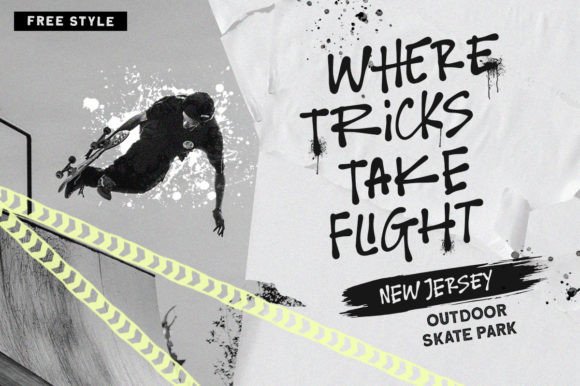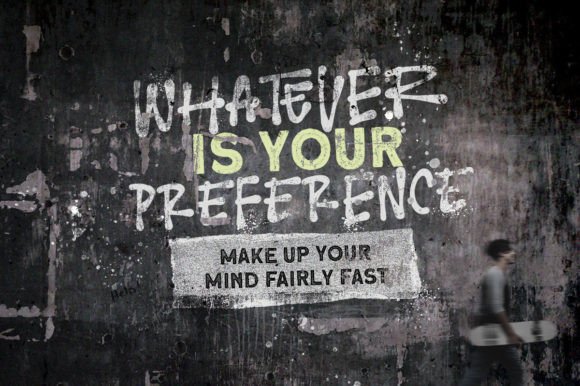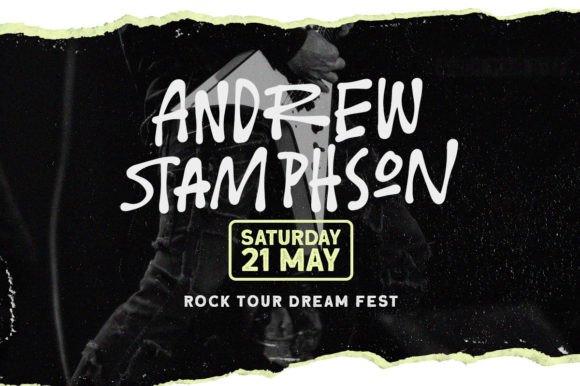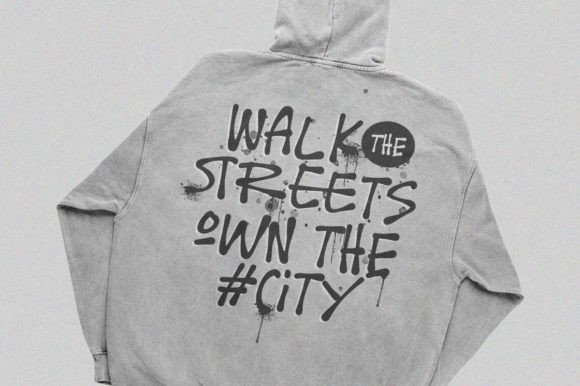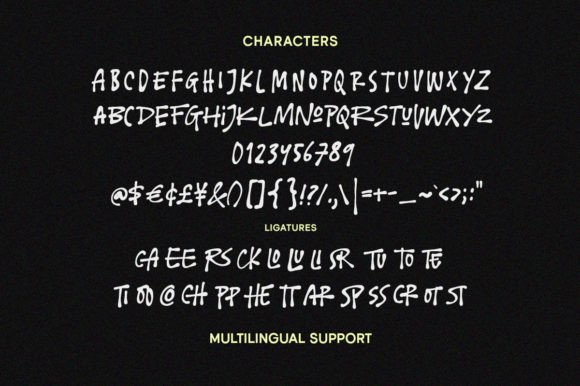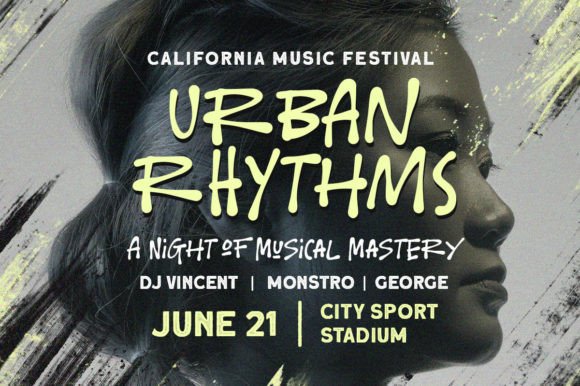
Introducing Flavour Heart Font: The Perfect Choice for Standout Headlines and Designs
Are you a designer or crafter looking for a unique and eye-catching font to elevate your creative projects? Look no further than Flavour Heart Font, an organic handwritten typeface designed to make your headlines, displays, and logotypes stand out from the crowd.
What is Flavour Heart Font?
Flavour Heart Font is a carefully crafted, organic handwritten typeface that exudes warmth and personality. Its distinctive, hand-crafted feel makes it perfect for designs that require a personal touch, such as logos, invitations, labels, and greeting cards.
Key Features of Flavour Heart Font
- Organic Handwritten Style: Flavour Heart Font boasts a beautifully organic, handwritten style that adds a touch of warmth and personality to any design.
- PUA Encoded: This font is PUA (Private Use Area) encoded, making it easy to access all the amazing glyphs and ligatures.
- Standout Appearance: With its unique and eye-catching design, Flavour Heart Font is perfect for headlines, display text, logotypes, and signatures that need to make a statement.
- Versatile: This font is suitable for a wide range of design applications, including logos, invitations, labels, magazines, books, greeting/wedding cards, packaging, fashion, makeup, stationery, novels, and more.
Use Cases for Flavour Heart Font
Flavour Heart Font is an incredibly versatile typeface that can be used in a variety of design projects, including:
- Logos and Branding: Create a unique and memorable logo that reflects your brand’s personality with Flavour Heart Font.
- Invitations and Greeting Cards: Add a personal touch to your invitations, greeting cards, and wedding cards with this beautiful handwritten font.
- Labels and Packaging: Make your product labels and packaging stand out with Flavour Heart Font’s distinctive design.
- Magazines and Books: Use this font to add a touch of elegance and sophistication to your magazine or book designs.
- Advertising and Marketing: Create eye-catching advertisements and marketing materials with Flavour Heart Font’s bold and attention-grabbing design.
Why Choose Flavour Heart Font?
With so many fonts available, why choose Flavour Heart Font? Here are just a few reasons:
- Unique Design: Flavour Heart Font’s organic handwritten style sets it apart from other fonts, ensuring your designs will stand out.
- Easy to Use: With PUA encoding, accessing glyphs and ligatures is simple, making it easy to get the most out of this font.
- Versatile: This font can be used in a wide range of design applications, making it a great addition to any designer’s toolkit.
Flavour Heart Font is a beautiful, organic handwritten typeface that’s perfect for designers and crafters looking to add a personal touch to their creative projects. With its standout appearance, versatility, and ease of use, this font is sure to become a favorite in your design toolkit. So why wait? Download Flavour Heart Font today and start creating stunning designs that will leave a lasting impression!